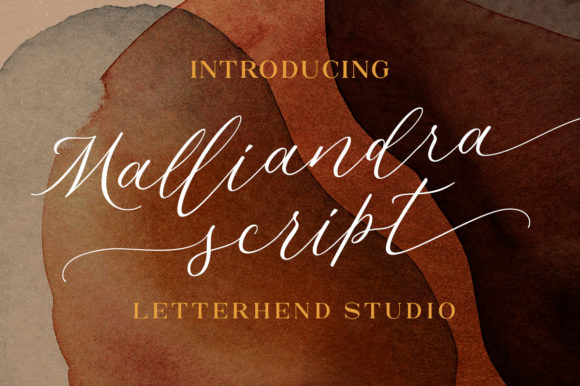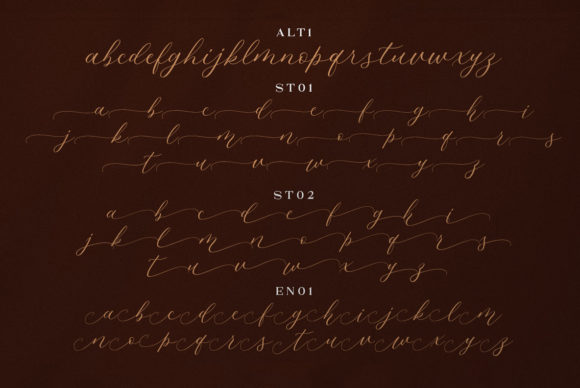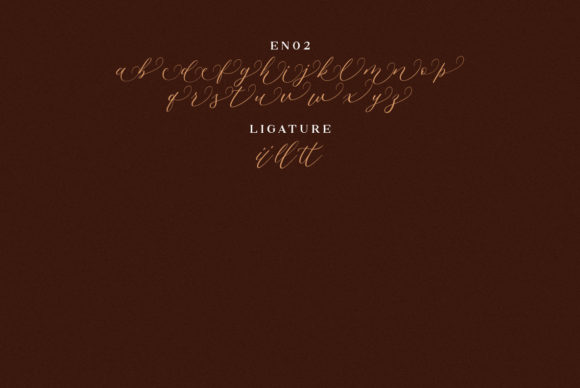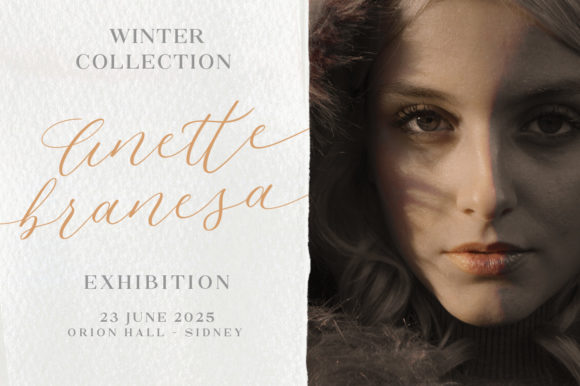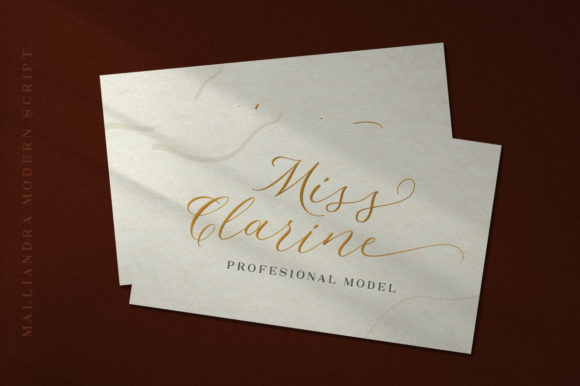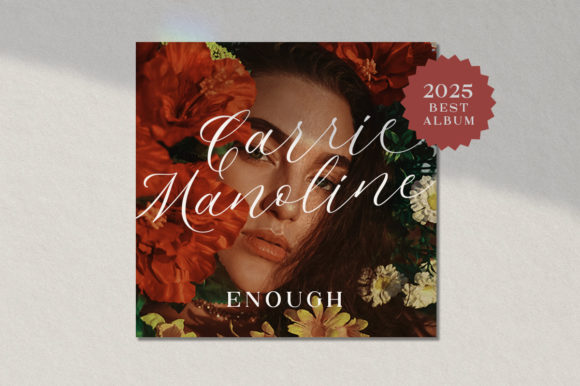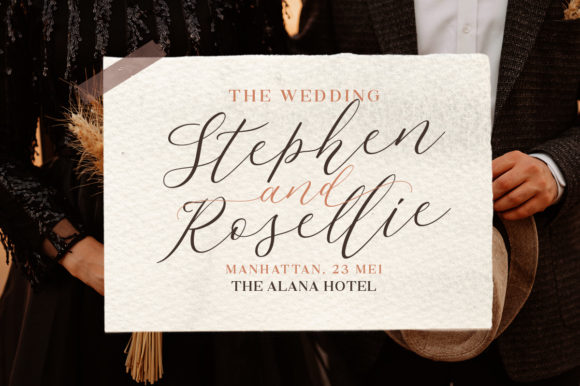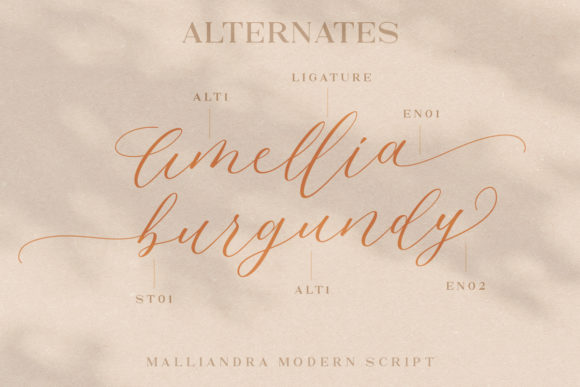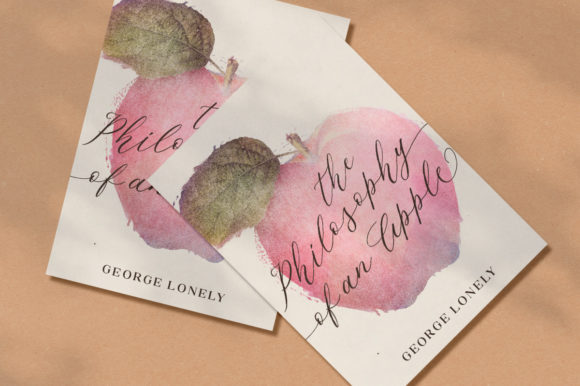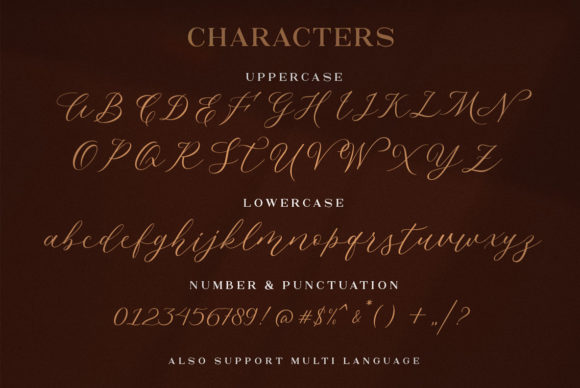
Malliandra Script Font
About Malliandra Script Font
Malliandra Script is a stylish and romantic handwritten font. Flowing and elegant, this font will elevate each of your dear creative ideas. This font is PUA encoded which means you can access all of the glyphs and swashes with ease!